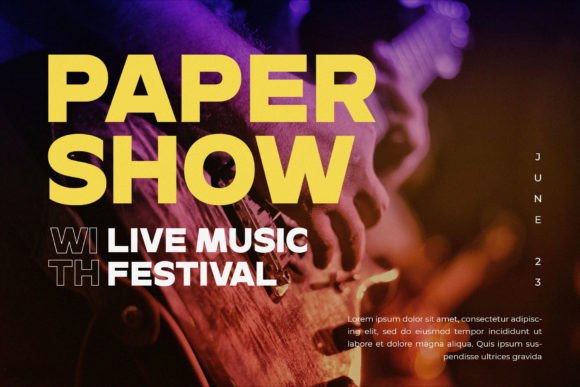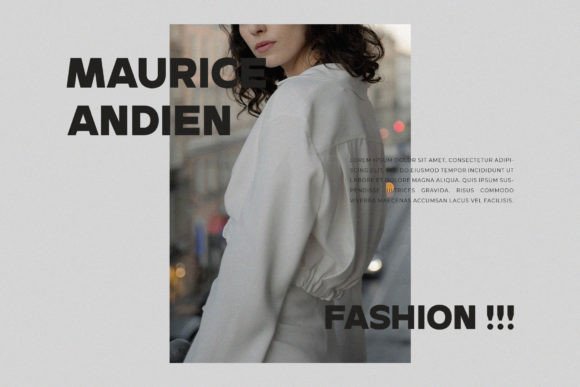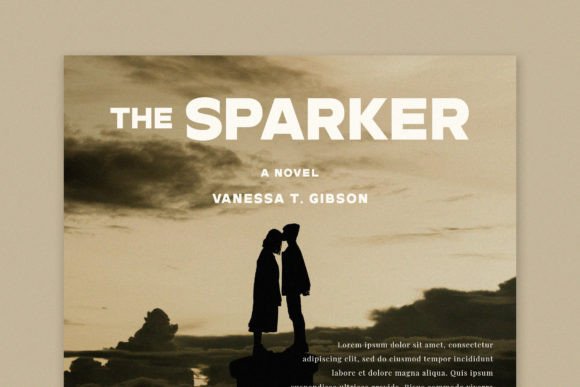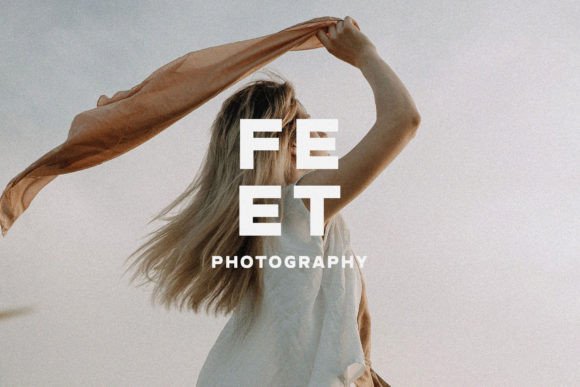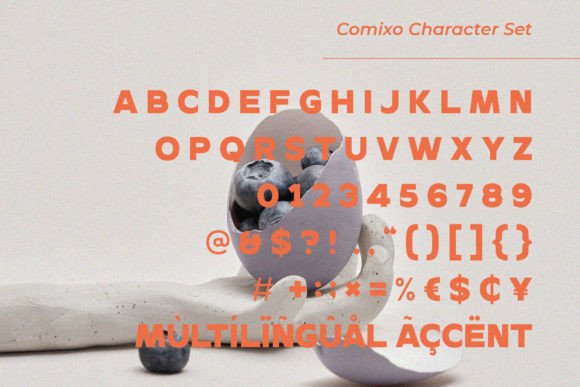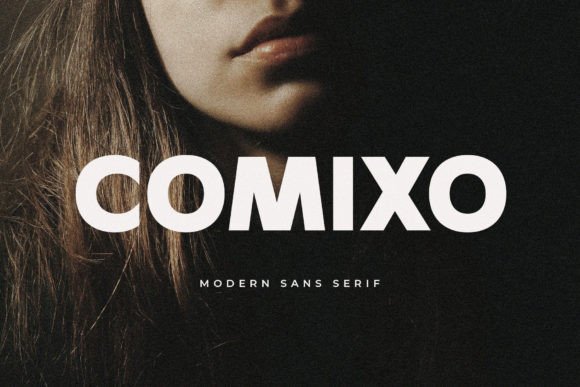
Introducing Comixo – Modern Sans Serif
In the world of typography, a good font can make all the difference in the success of a design project. Whether you’re a seasoned designer or a crafty DIY enthusiast, finding the right typeface can elevate your work from ordinary to extraordinary. That’s where Comixo comes in – a modern and classy sans-serif font that’s perfect for adding a touch of sophistication to any project.
What is Comixo?
Comixo is a sleek and contemporary typeface designed specifically for display purposes. Its clean lines and smooth curves make it an ideal choice for headings, logos, branding, magazines, product packaging, and invitations. With Comixo, you can add a dash of elegance and refinement to your designs, setting them apart from the rest.
Key Features of Comixo
- Modern sans-serif design: Comixo boasts a fresh and modern aesthetic, making it perfect for designs that require a clean and minimalist look.
- Clean lines and smooth curves: The font’s sleek lines and curves give it a sophisticated feel, adding a touch of class to any project.
- Display font: Comixo is designed specifically for display purposes, making it ideal for headings, titles, and other prominent text elements.
- Versatile: From logos and branding to magazines and product packaging, Comixo can be used in a variety of design applications.
Why Choose Comixo?
With so many fonts available, why choose Comixo? Here are just a few reasons why designers and crafters are falling in love with this modern sans-serif typeface:
- Unique and distinctive: Comixo’s modern design sets it apart from more traditional fonts, giving your designs a fresh and contemporary feel.
- Elegant and refined: The font’s clean lines and smooth curves give it an air of sophistication, making it perfect for designs that require a touch of elegance.
- Easy to read: Despite its sleek design, Comixo is highly legible, making it perfect for use in a variety of applications, from headings to body text.
How to Use Comixo
Comixo is incredibly versatile, making it suitable for a wide range of design applications. Here are just a few ideas to get you started:
- Logos and branding: Use Comixo to create a modern and sophisticated logo that sets your brand apart.
- Magazines and publications: Comixo is perfect for headings, titles, and other prominent text elements in magazines, newspapers, and other publications.
- Product packaging: Add a touch of elegance to your product packaging with Comixo, making your products stand out on store shelves.
- Invitations and events: Use Comixo to create beautiful and sophisticated invitations for weddings, parties, and other events.
In conclusion, Comixo is a modern and classy sans-serif font that’s perfect for designers and crafters looking to add a touch of sophistication to their work. With its clean lines, smooth curves, and versatile design, Comixo is sure to become a go-to typeface for a wide range of applications. Whether you’re creating logos, magazines, product packaging, or invitations, Comixo is the perfect choice for adding a dash of elegance and refinement to your designs.